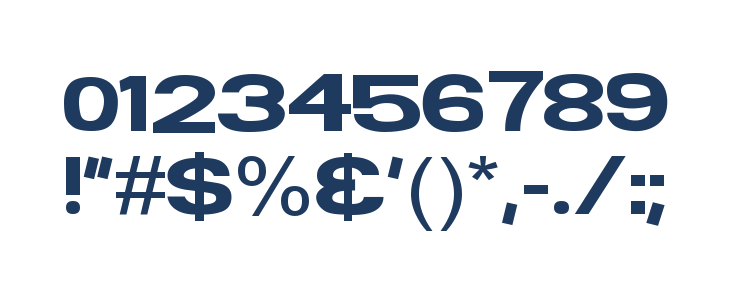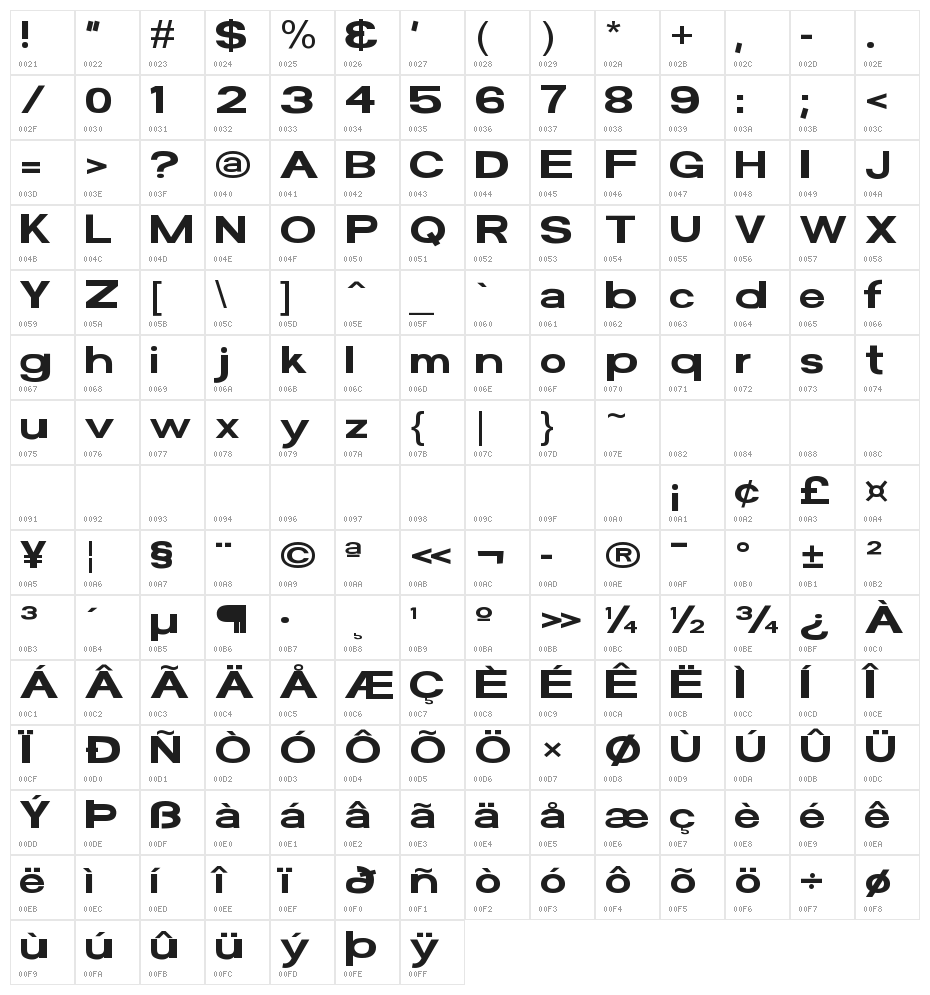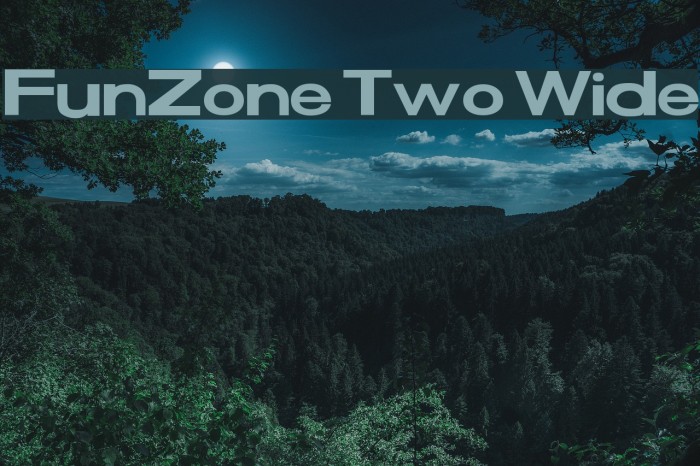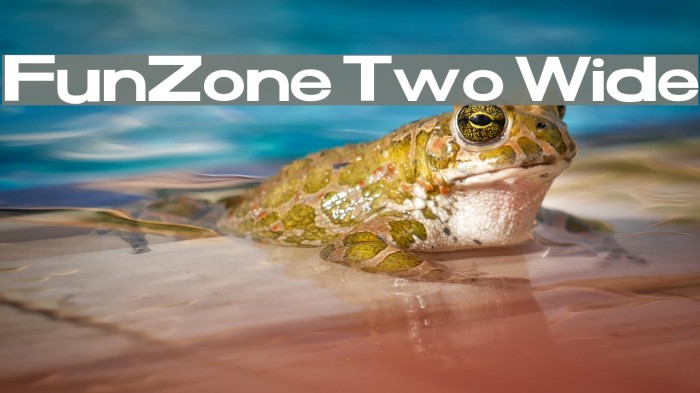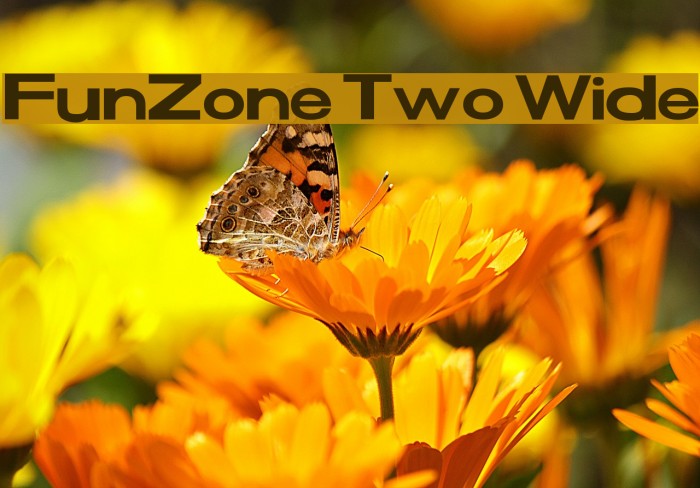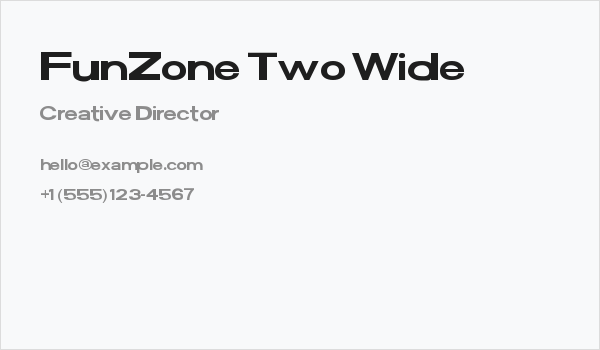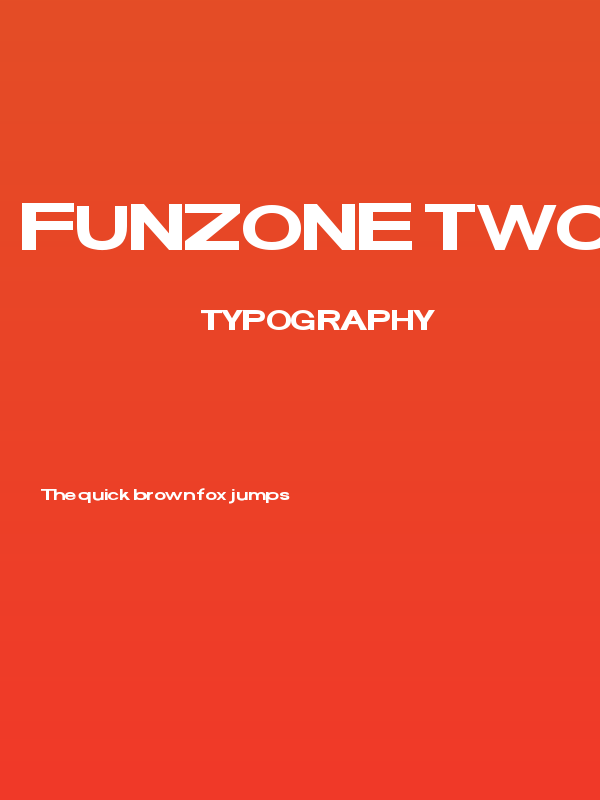
FunZone Two Wide Font
FunZone Two Wide Description
This font features a bold and modern design with a strong presence. The characters are wide and have a uniform thickness, giving them a robust and impactful appearance. The uppercase letters are slightly more angular, while the lowercase letters maintain a rounded and smooth form. The numbers are consistent with the overall style, ensuring readability and clarity. Special characters are distinct and complement the font's bold nature. This typeface is well-suited for making a statement in any design project.
| Proposed Projects | Ideal for headlines, posters, branding, and advertising where a strong visual impact is desired. |